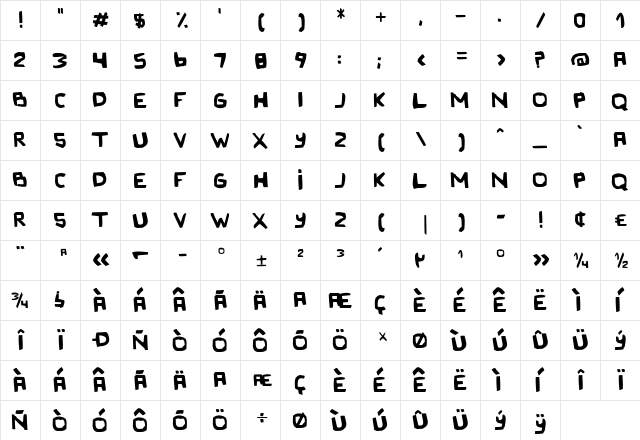
Original Olinda Style Display
| Style | Display |
| Foundry | Joao Paulo Angelim |
| Designer | Joao Paulo Angelim |
Design Context for Original Olinda Style Typeface
Original Olinda Style is built around its visual character rather than neutral utility — its distinctive forms are designed to make an impression at display sizes.
Font Pairing: Pair with a clean neutral sans-serif for body copy to let Original Olinda Style's character lead without overwhelming the composition.
Pro Tip: Use Original Olinda Style exclusively at display sizes — it was designed to be seen, not read at length. Let a neutral companion handle body copy.